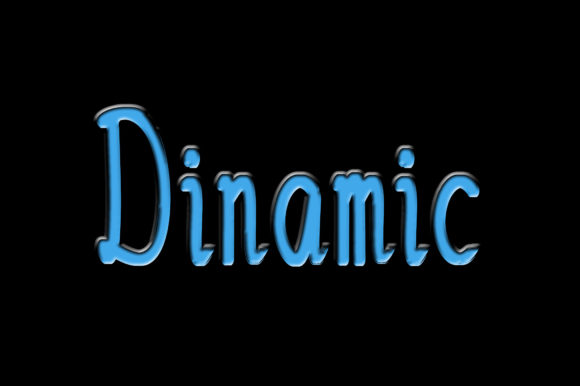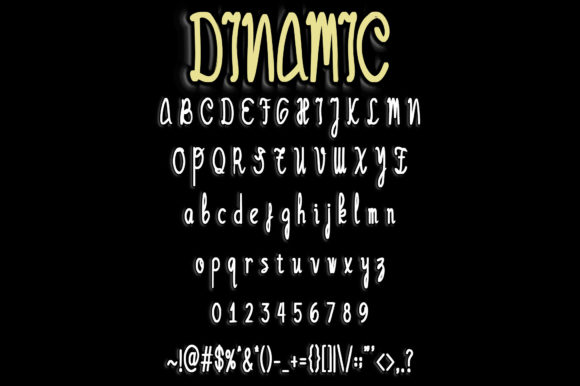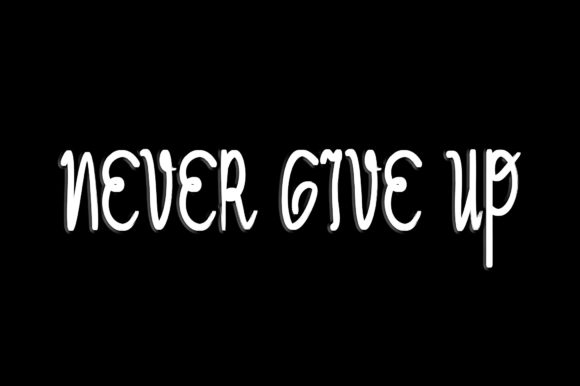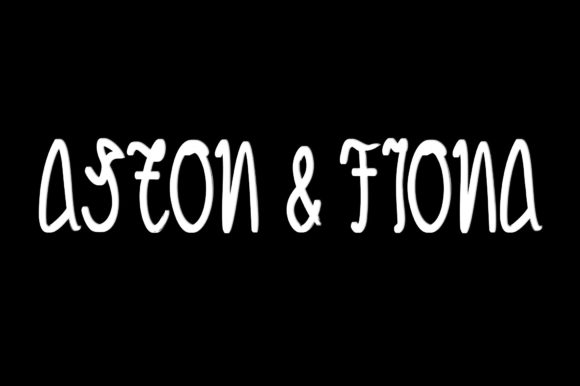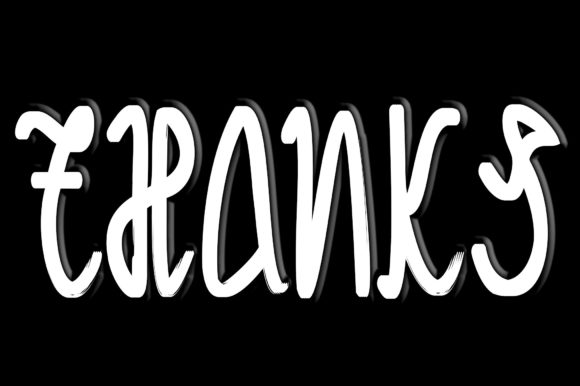
Dinamic Font
About Dinamic Font
Dinamic is a natural and chic handwritten font. It is a great choice for projects that require an authentic look, such as wedding invitations, birthday cards, thank you notes, and more!